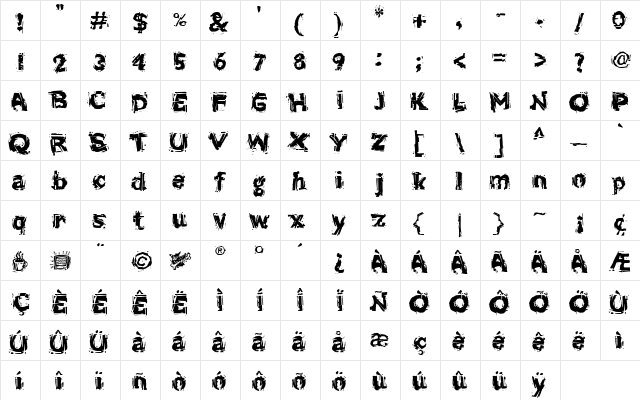
Havoc Medium
Design Context for Havoc Typeface
Havoc is a composed and adaptable typeface that performs quietly and consistently across a wide range of design contexts.